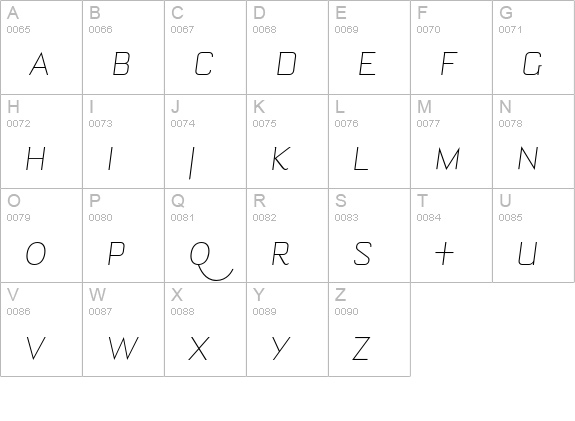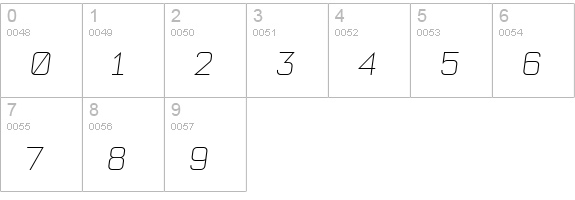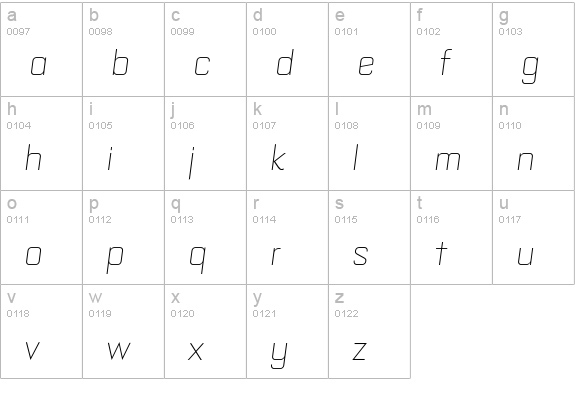
Bourgeois LightItalAlt Font Details
Bourgeois LightItalAlt is a sophisticated and elegant font that exudes class and refinement. Its delicate italicized form adds a touch of grace and style to any design project. This font is perfect for creating upscale and luxurious designs, whether it's for branding, invitations, or editorial layouts. The Bourgeois LightItalAlt font is not only visually stunning but also highly versatile, making it suitable for a wide range of design applications. Its sleek and modern appearance will elevate any project and give it a polished and professional look. Best of all, Bourgeois LightItalAlt is available for free download at FontsMarket.com, making it accessible to all designers looking to add a touch of sophistication to their work. Don't miss out on this opportunity to enhance your designs with this exquisite font. Download Bourgeois LightItalAlt today and bring a touch of luxury to your projects.